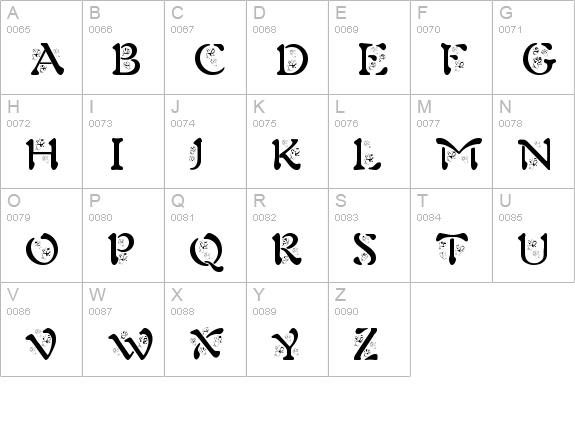
BJF Angels Font Details
BJF Angels font is a whimsical and playful typeface that brings a touch of magic to any design project. With its elegant curves and delicate lines, this font exudes a sense of grace and beauty. Perfect for adding a touch of enchantment to invitations, greeting cards, posters, and more, BJF Angels font is sure to captivate your audience. Best of all, this stunning font is available for free download at FontsMarket.com. Whether you're a professional designer looking to add a special touch to your work or simply someone who appreciates the beauty of typography, BJF Angels font is a must-have addition to your font collection. Download it today and let your creativity soar with this enchanting and delightful typeface.